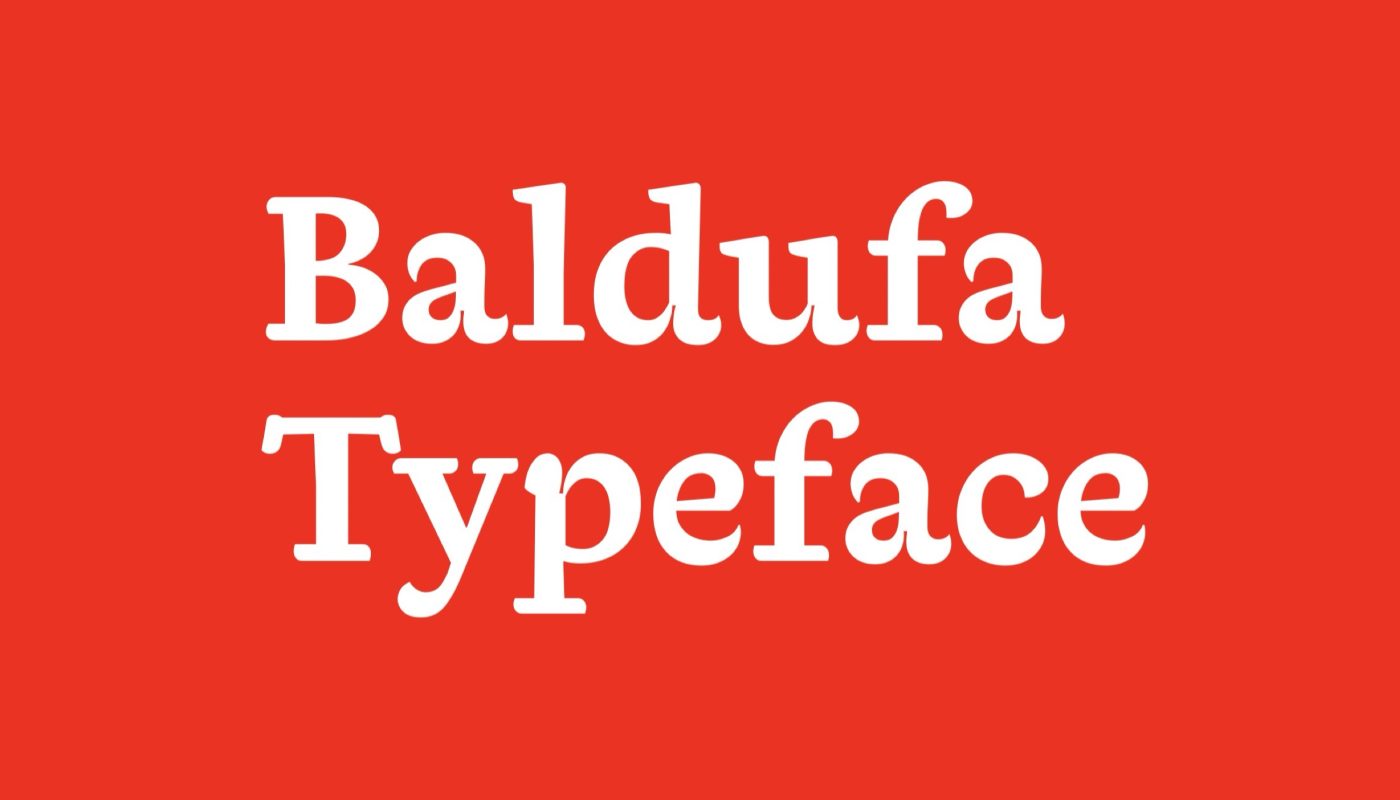
What: nice contemporary touch on the old-style skeleton with soft edges, but not too soft.
Emotions: warm and playful
Styles: Regular, Italic, Bold
Use cases: dungeon and dragons books, CRPG games, history books, children books, posters
Best for: +body text, +-display, -UI
Language: Latin, Cyrillic and Arabic
Combinations: seems like any geometric typeface will pair just fine